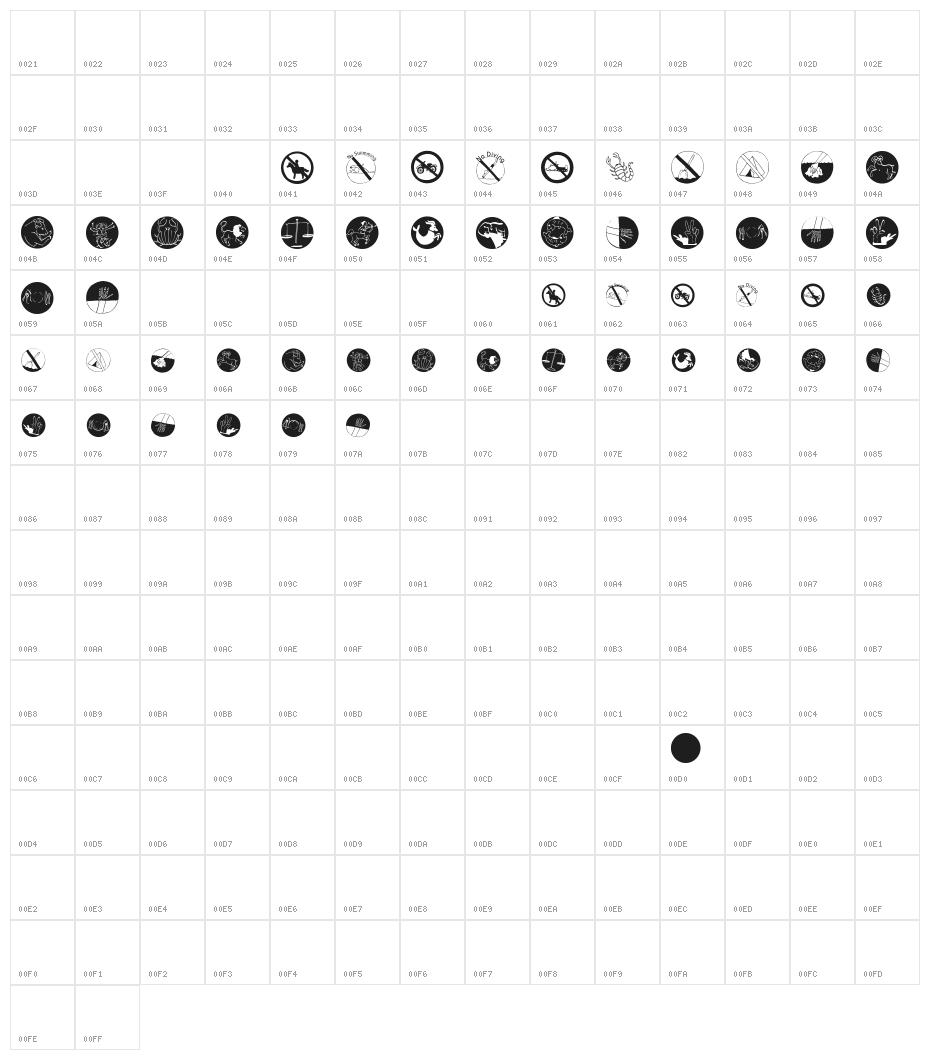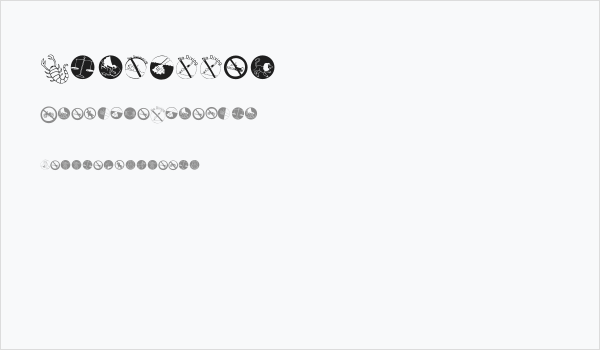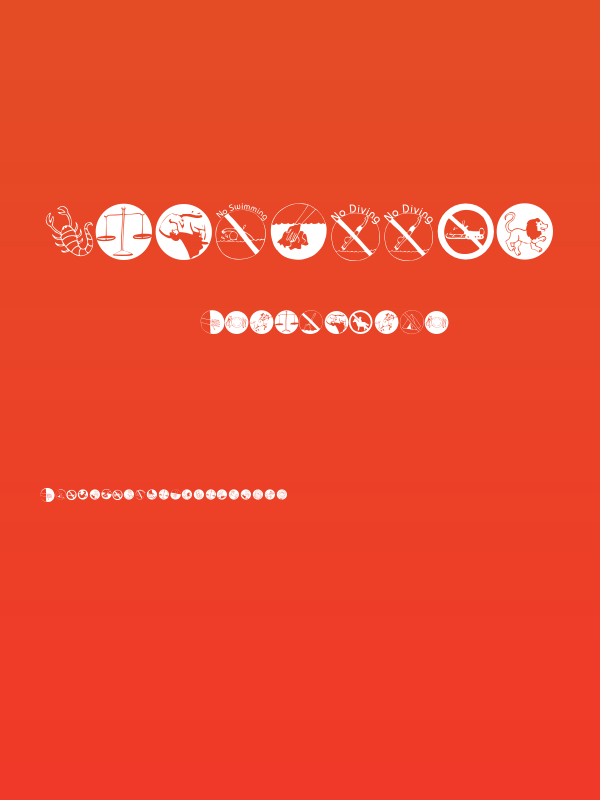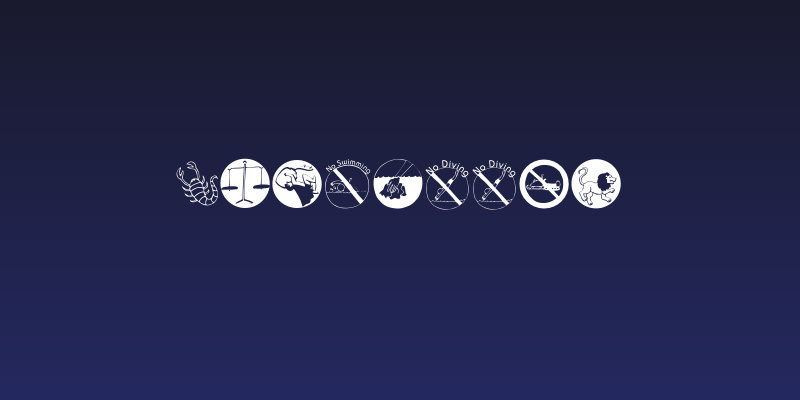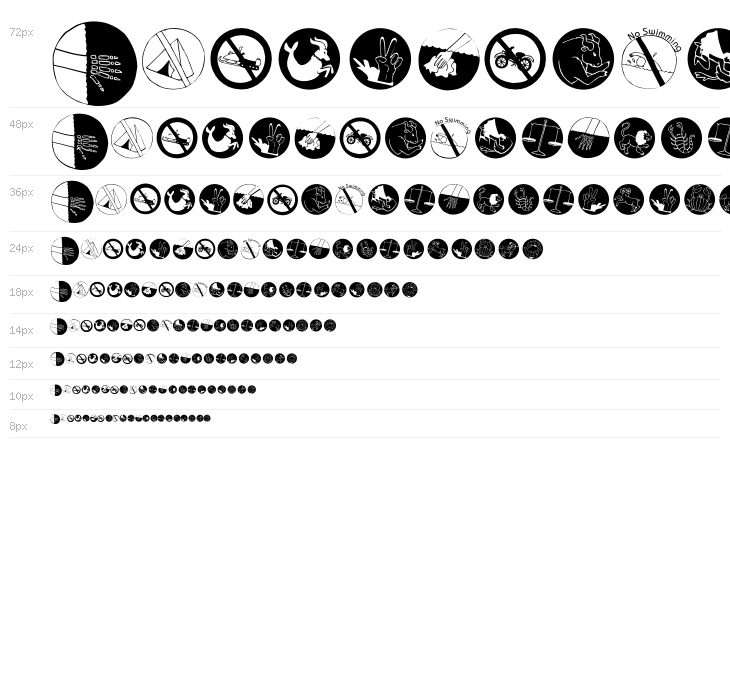
Forbidden Font
Forbidden Description
A pictogram-based decorative font featuring circular icons with forbidden or warning symbols, including animals, activities, and objects, rendered in a simple line-art style with high contrast between black and white backgrounds.
| Overall Style | Decorative, Informative, Modern |
| Use Case | Signage, Icons, Posters, Informational graphics |
| Proposed Projects | Signage, infographics, educational materials, safety posters, themed event graphics. |